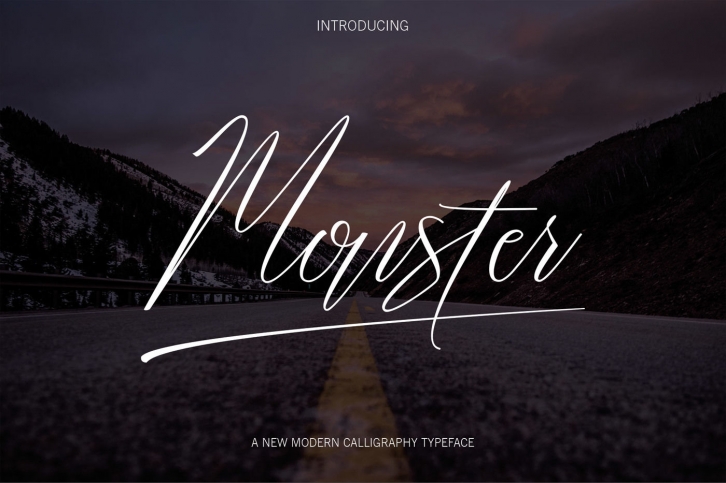
Monster  a work that is purely a result of handwriting, has a natural characteristic. this is perfect for invitations, signatures, blogs, social media, business cards, product brands.
Monster  has Stylistic standard, Stylistic Alternates and ligatures. and includes uppercase and lowercase letters, numbers and punctuation marks.